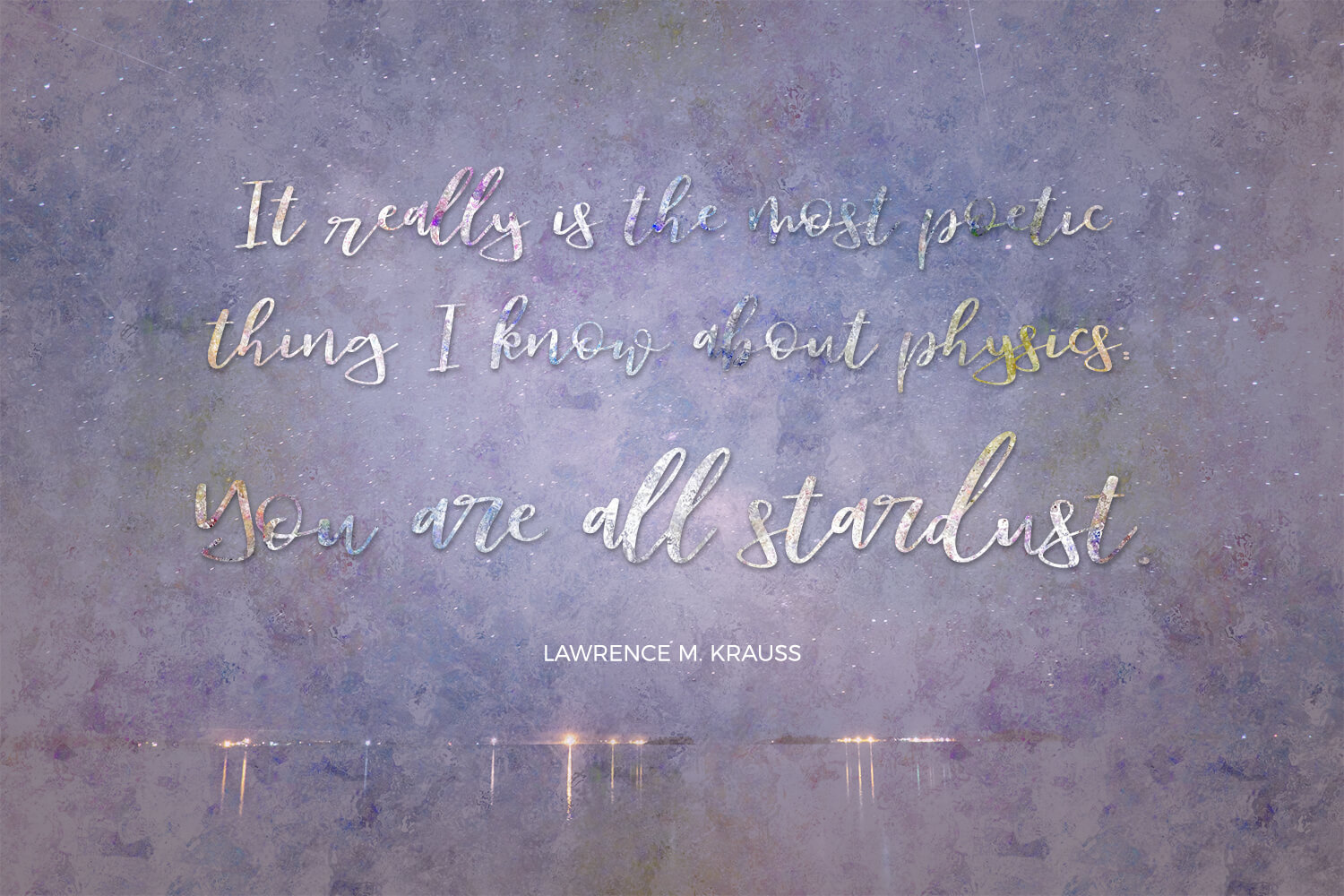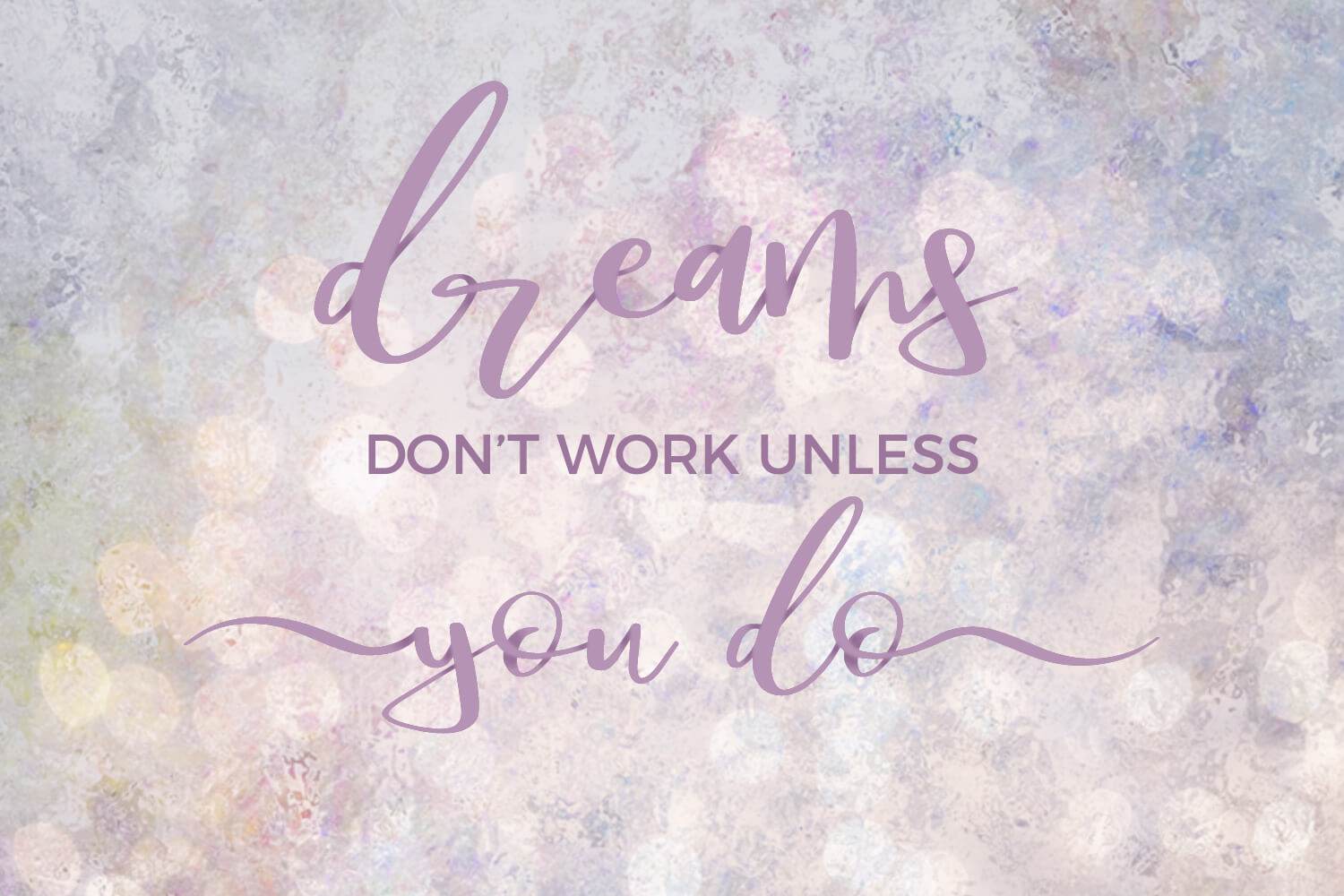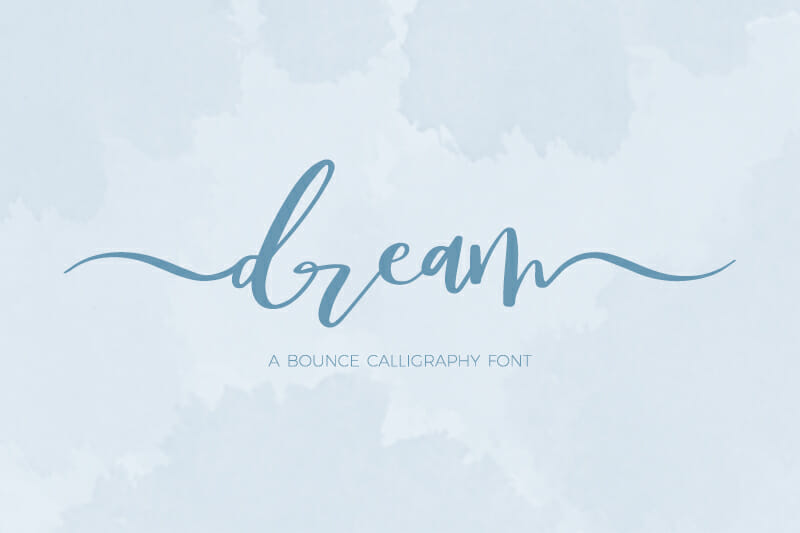
Dream Bounce Calligraphy Font
Dream Bounce Calligraphy Font features two different swash options for all lowercase characters. Enjoy access to both left and right swashes, and a few ligatures. Also includes Western European language support.
Dream Bounce Calligraphy Font is a lovely, hand-lettered font with a varied baseline, which gives the font its characteristic hand-lettered feel.  Dream is perfect for modern branding, invitations, or quote graphics.
Dream Bounce Calligraphy includes:
• versatile left & right swashes on lowercase letters
• some ligatures
• numbers, punctuation, & Western European language support